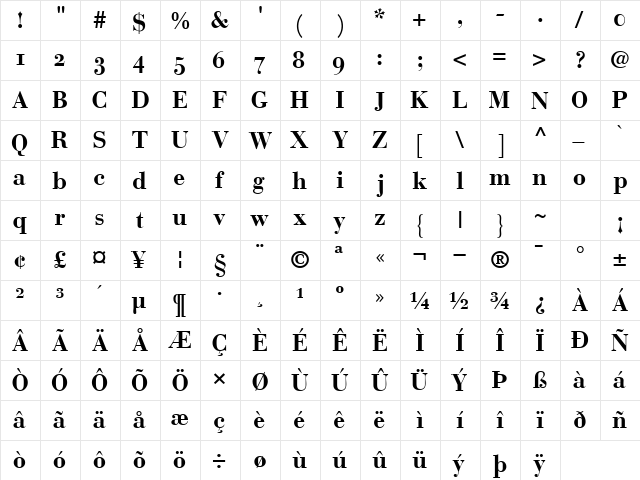
BodoniRecutOSSSK Bold Font Preview
BodoniRecutOSSSK Bold
BodoniRecutOSSSK Bold Font Details
Design Context for BodoniRecutOSSSK Typeface
BodoniRecutOSSSK takes a measured approach to typography — its balanced proportions and neutral character make it a reliable workhorse for both digital and print work. Its bold stroke weight gives it real presence on the page.